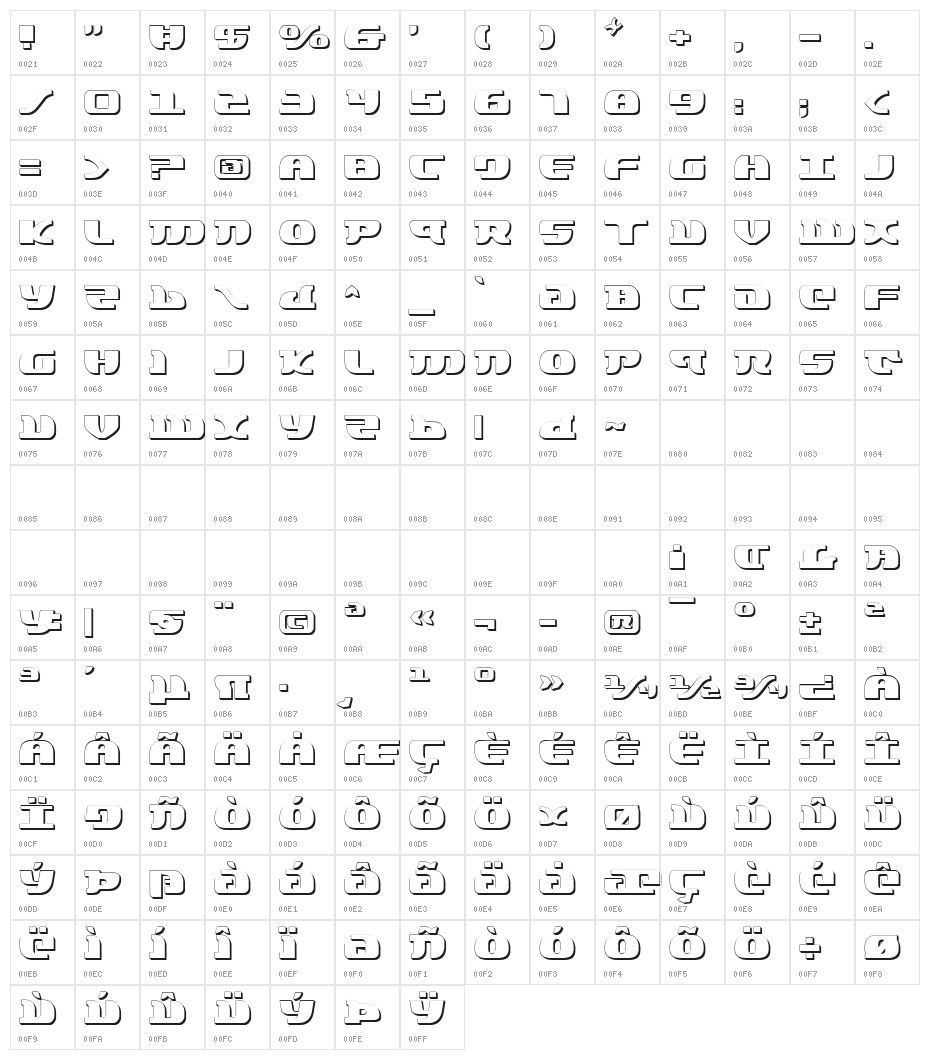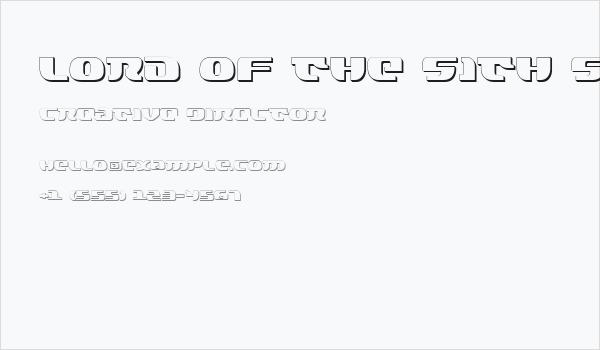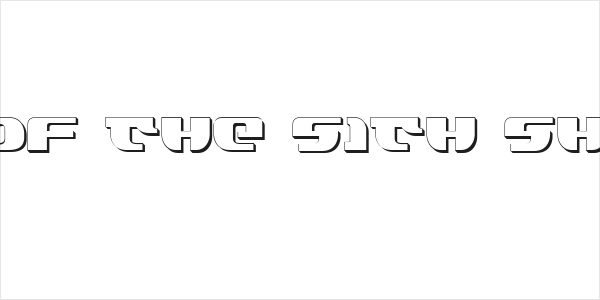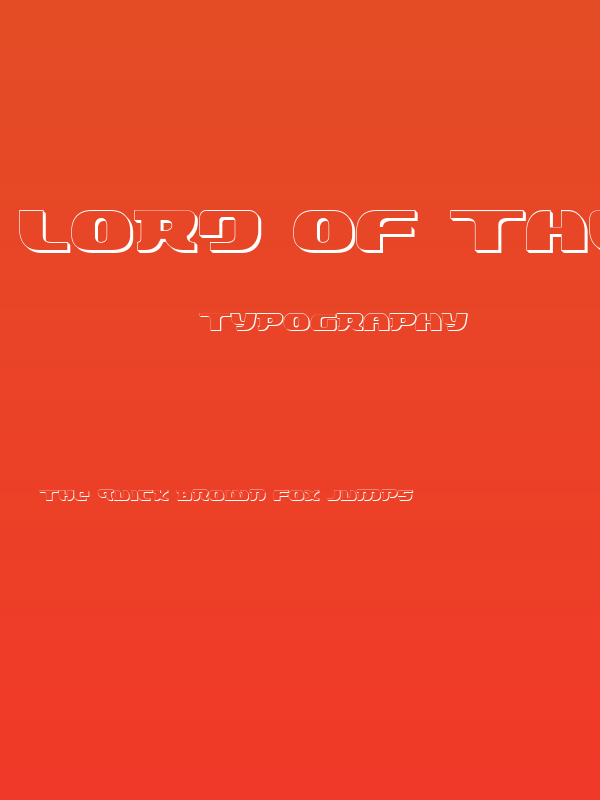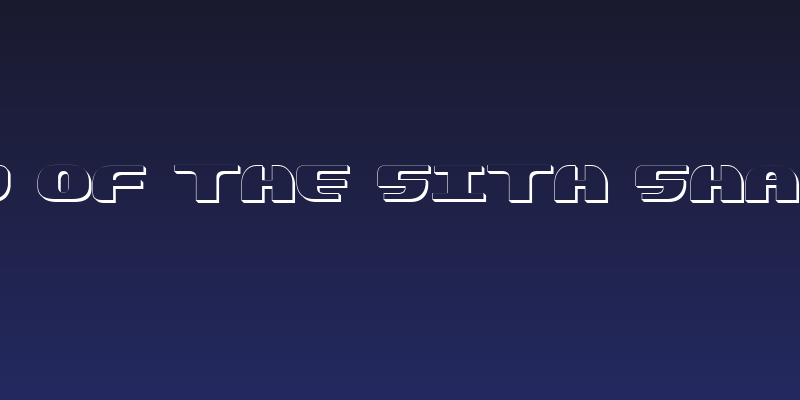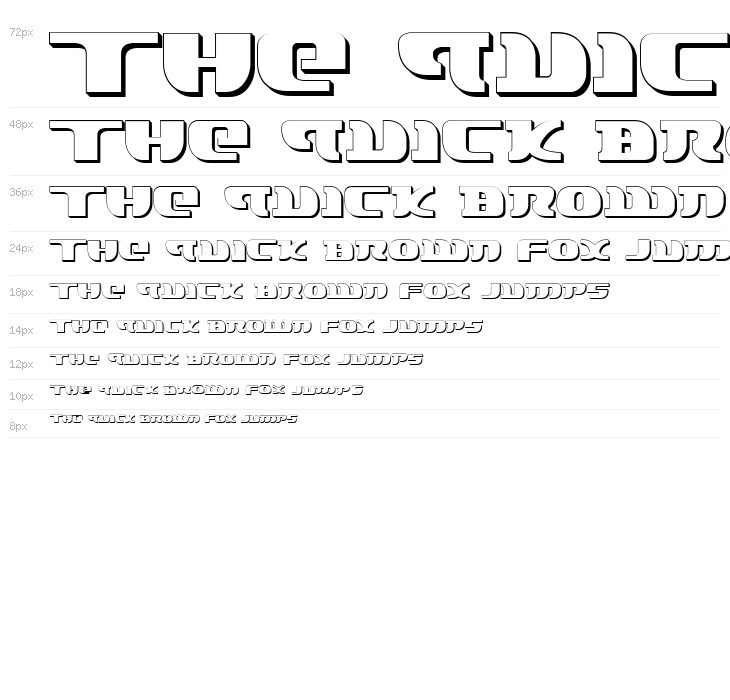
Lord of the Sith Shadow Font
Lord of the Sith Shadow Description
This font features a bold, futuristic design with a distinct shadow effect that gives each character a three-dimensional appearance. The uppercase and lowercase letters maintain a consistent geometric style, with rounded edges and a blocky structure. The numbers and special characters follow the same design principles, ensuring a cohesive look across all elements. The font's unique shadowing adds depth and intrigue, making it stand out in any design project. Its bold presence and modern aesthetic make it suitable for a variety of creative applications.
| Proposed Projects | Ideal for sci-fi themed posters, video game titles, and branding materials that require a modern, eye-catching typeface. |